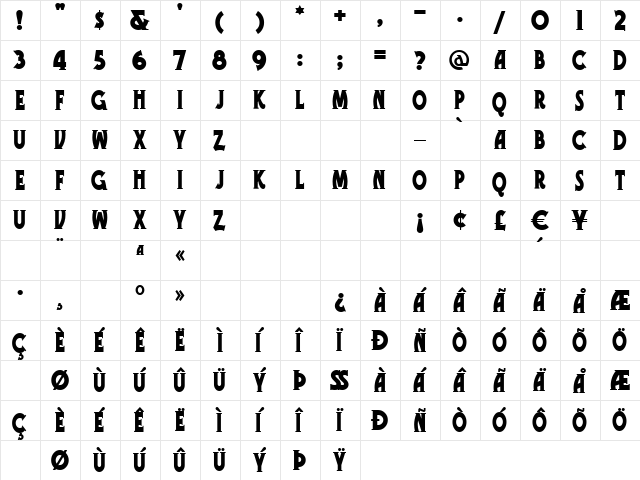
Telegraph Regular
Design Context for Telegraph Typeface
Telegraph is a composed and adaptable typeface that performs quietly and consistently across a wide range of design contexts.
Pro Tip: Pair Telegraph with a font of contrasting weight or personality to build a more expressive typographic hierarchy.